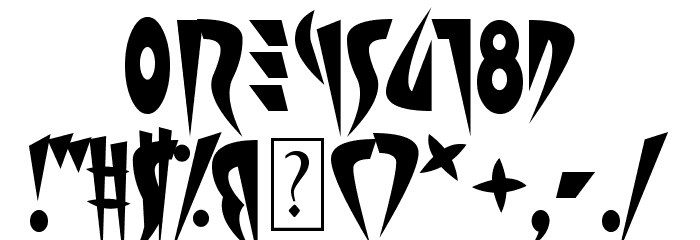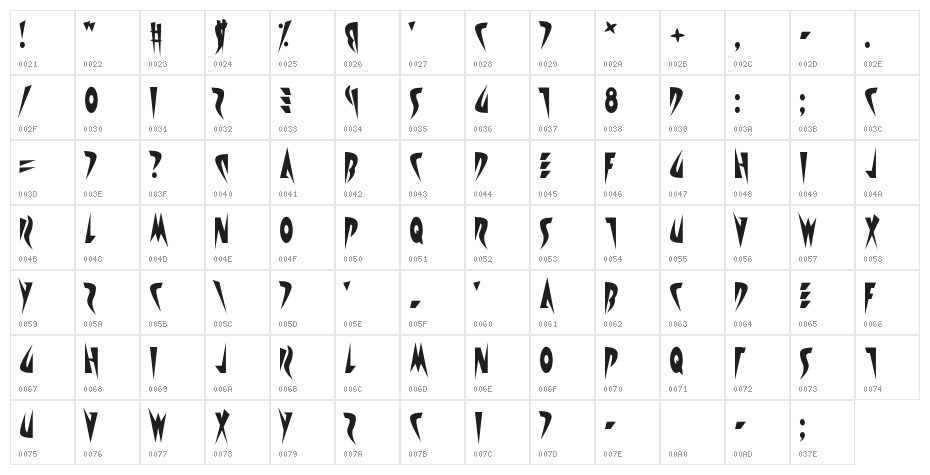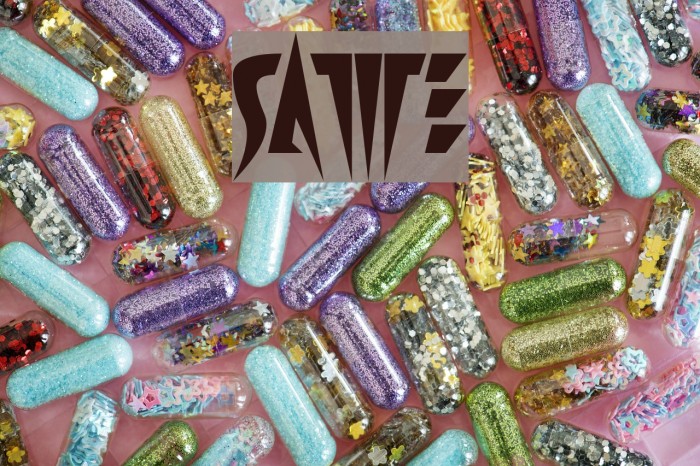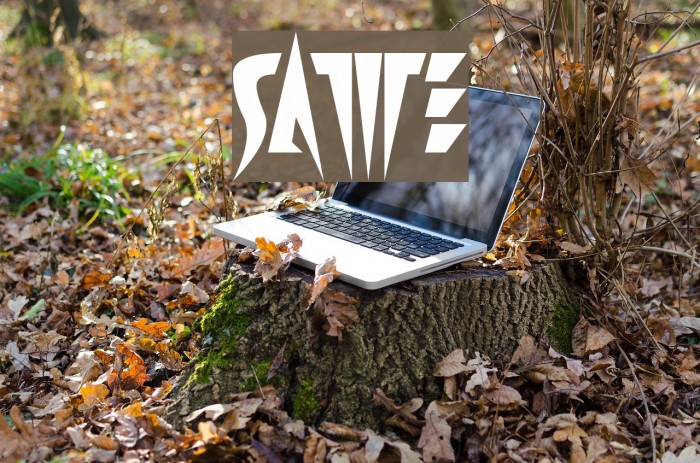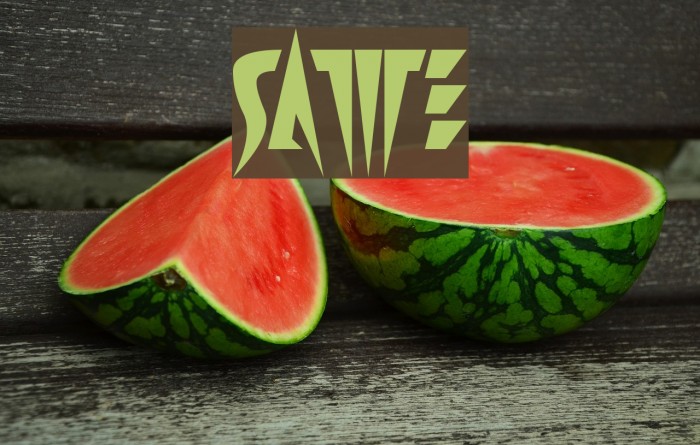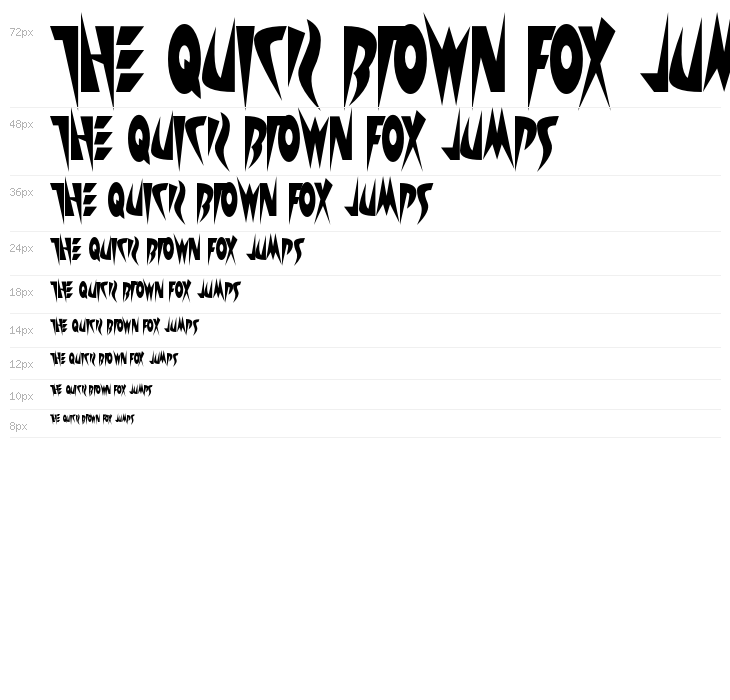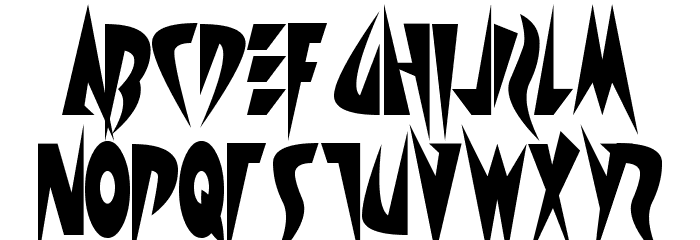
Satire Font
Satire Description
This font features a bold and striking design with sharp, angular edges and a highly stylized appearance. The characters are crafted with dramatic points and curves, creating a sense of movement and energy. The uppercase and lowercase letters maintain a consistent style, with the uppercase being particularly prominent and eye-catching. Numbers and special characters are designed to match the overall aesthetic, ensuring a cohesive look across all text. The font's unique style makes it suitable for projects that require a strong visual impact.